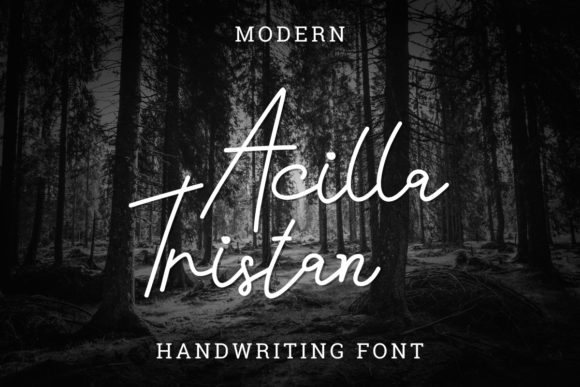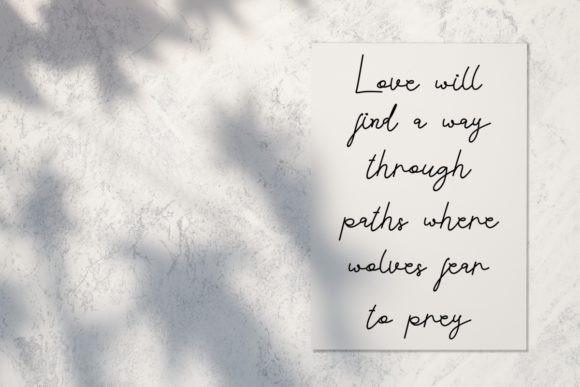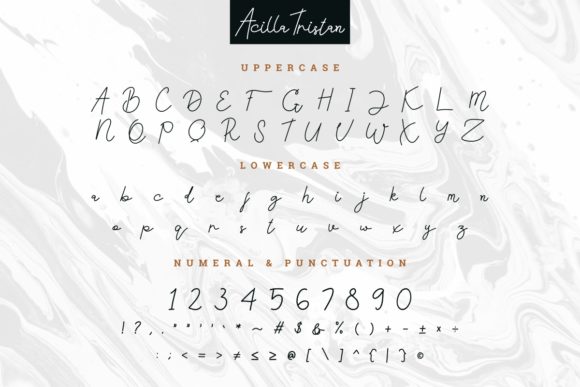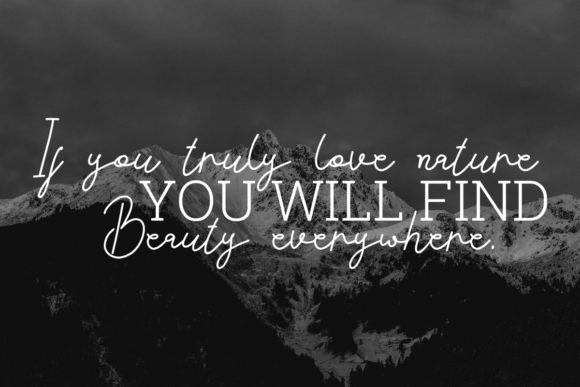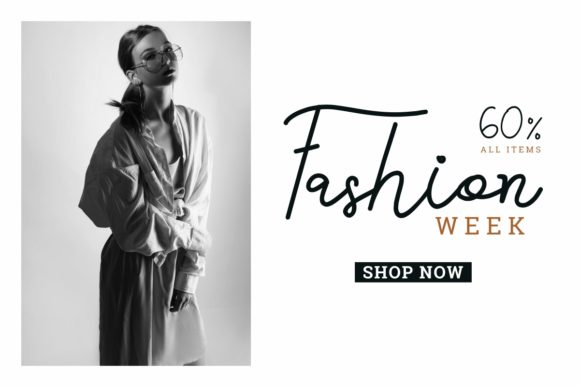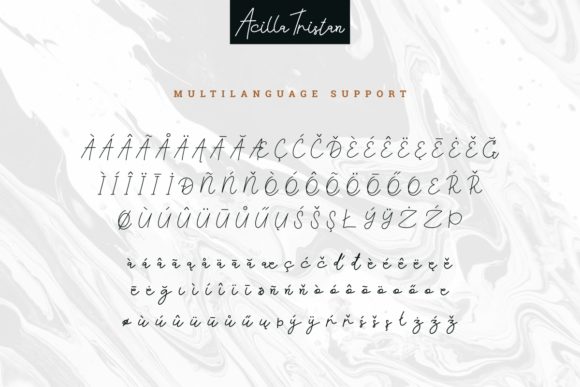
Discover the Elegance of Acilla Tristan Font: A Timeless Signature Script
Are you a designer or crafter looking for a font that exudes elegance and sophistication? Look no further than the Acilla Tristan Font. This classic signature script font has been making waves in the design community with its unique, elegant, and beautiful look and feel. In this article, we’ll dive into the world of Acilla Tristan Font and explore its features, uses, and benefits.
What is Acilla Tristan Font?
Acilla Tristan Font is a carefully crafted signature script font that boasts a distinctive and refined aesthetic. Its classic design makes it an excellent choice for a wide range of projects, from wedding invitations and branding materials to packaging and digital media. With its elegant strokes and beautiful letterforms, Acilla Tristan Font is sure to add a touch of sophistication to any design.
Key Features of Acilla Tristan Font
- Unique and Elegant Design: Acilla Tristan Font features a one-of-a-kind design that sets it apart from other script fonts. Its elegant strokes and beautiful letterforms make it perfect for designs that require a touch of sophistication.
- Classic Signature Script: This font is a classic signature script font that is inspired by traditional calligraphy. It’s perfect for adding a personal touch to your designs.
- Highly Versatile: Acilla Tristan Font is suitable for a wide range of projects, including wedding invitations, branding materials, packaging, and digital media.
- Easy to Read: Despite its elegant design, Acilla Tristan Font is easy to read, making it perfect for body text and headlines.
Uses of Acilla Tristan Font
Acilla Tristan Font is a versatile font that can be used in a variety of projects, including:
- Wedding Invitations: Add a touch of elegance to your wedding invitations with Acilla Tristan Font.
- Branding Materials: Use Acilla Tristan Font to create sophisticated branding materials, such as logos, business cards, and letterheads.
- Packaging: Add a touch of luxury to your packaging with Acilla Tristan Font.
- Digital Media: Use Acilla Tristan Font in your digital media, such as social media graphics, blog posts, and email newsletters.
Benefits of Using Acilla Tristan Font
There are several benefits to using Acilla Tristan Font in your designs, including:
- Instant Elegance: Acilla Tristan Font adds an instant touch of elegance to any design.
- Unique Design: Its unique design sets it apart from other script fonts.
- Highly Versatile: Acilla Tristan Font is suitable for a wide range of projects.
Tips for Using Acilla Tristan Font
Here are a few tips for using Acilla Tristan Font in your designs:
- Use it Sparingly: Use Acilla Tristan Font sparingly to add a touch of elegance to your designs.
- Pair it with Other Fonts: Pair Acilla Tristan Font with other fonts to create a unique and interesting design.
In conclusion, Acilla Tristan Font is a classic signature script font that is perfect for designers and crafters looking for a unique and elegant font. Its highly versatile design makes it suitable for a wide range of projects, from wedding invitations and branding materials to packaging and digital media. With its instant elegance and easy-to-use design, Acilla Tristan Font is a must-have font for any designer or crafter.